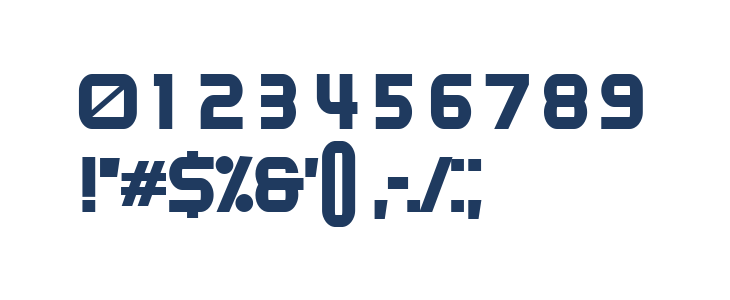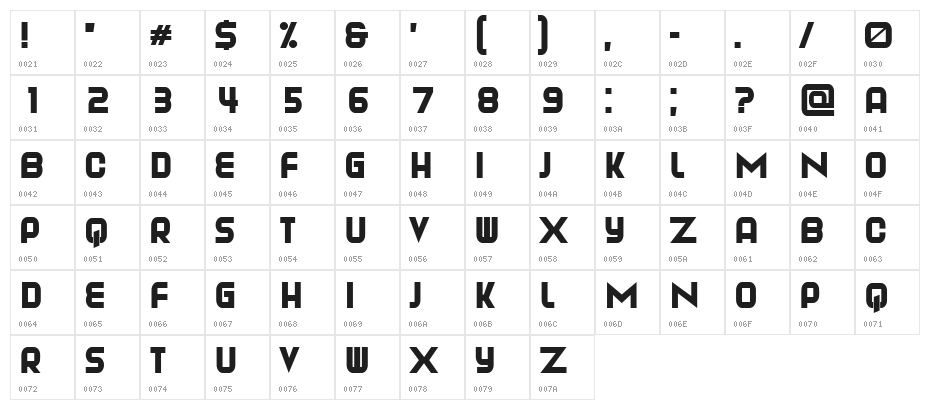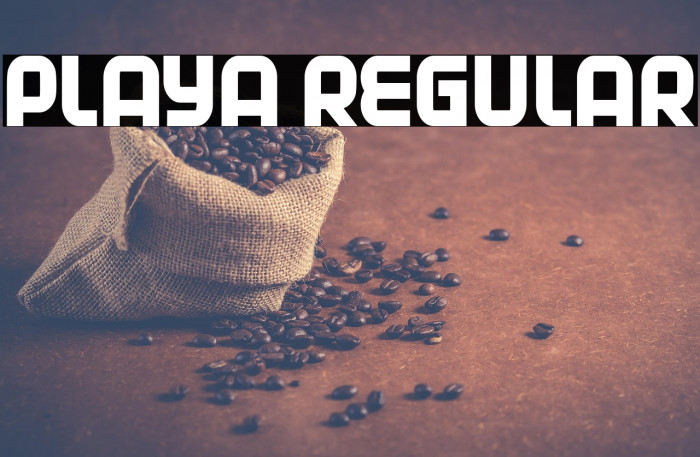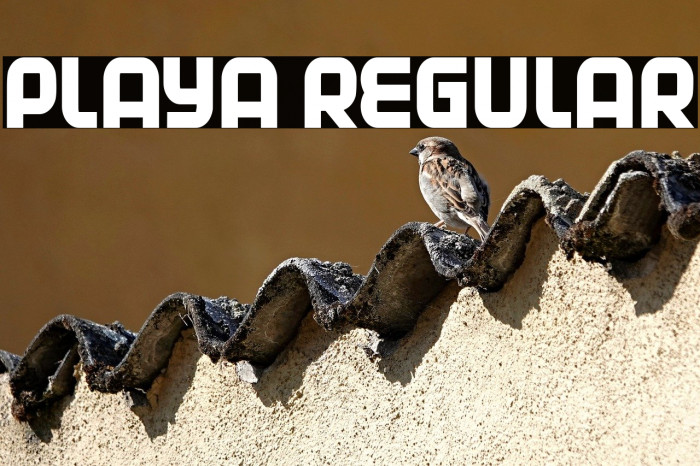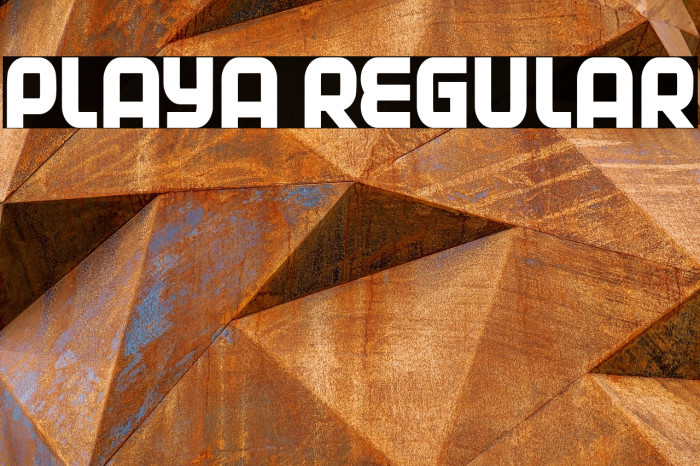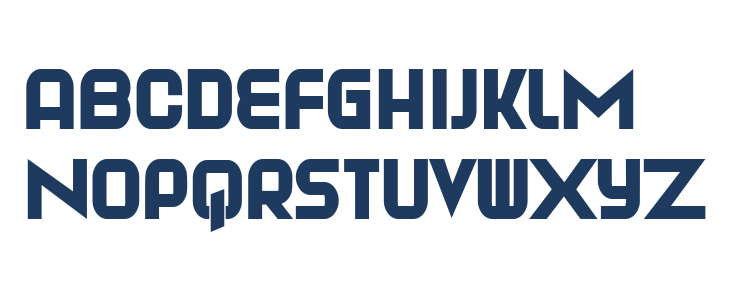
Playa Regular Font
Playa Regular Description
This font features a bold and geometric design with a modern and futuristic appeal. The characters are constructed with sharp angles and straight lines, giving them a strong and assertive presence. The uppercase letters are particularly striking, with a uniform height and width that create a cohesive and balanced look. The numerals and special characters maintain the same boldness and geometric style, ensuring consistency across all elements. The font's design is ideal for projects that require a contemporary and impactful aesthetic.
| Proposed Projects | Ideal for branding, headlines, posters, and digital media that require a strong visual impact. |